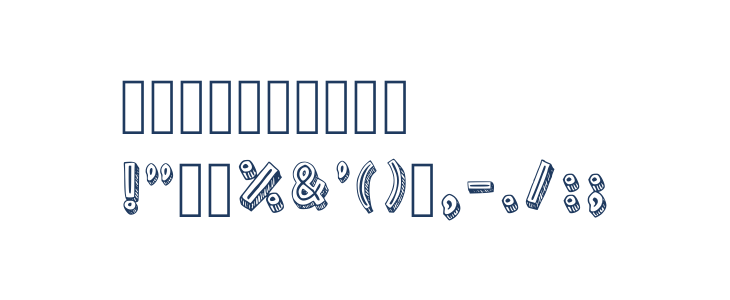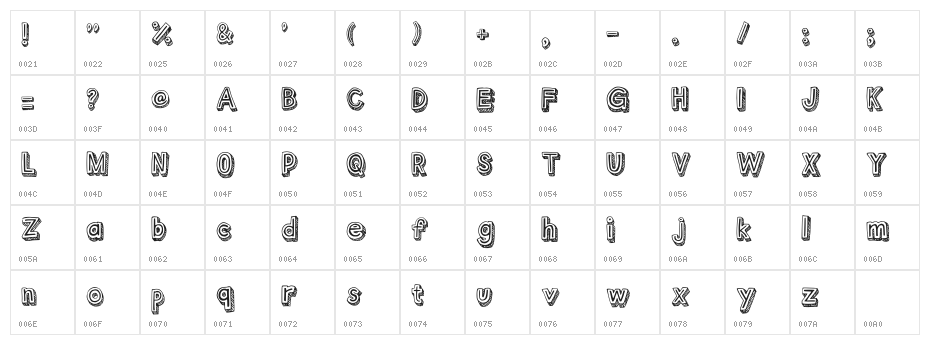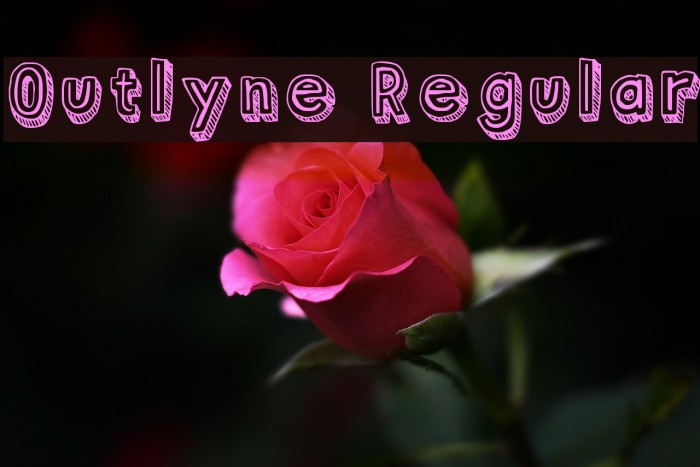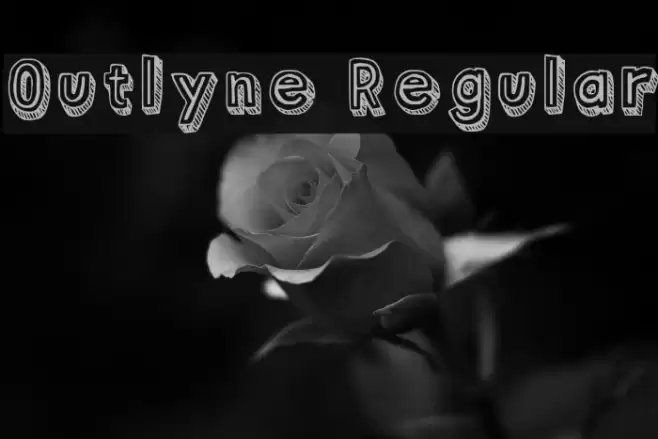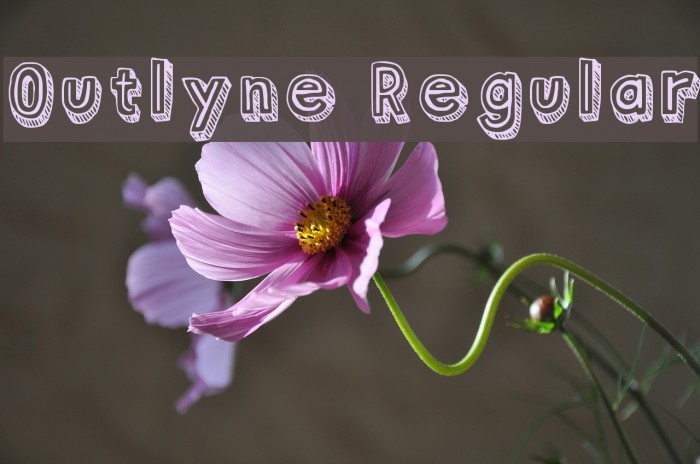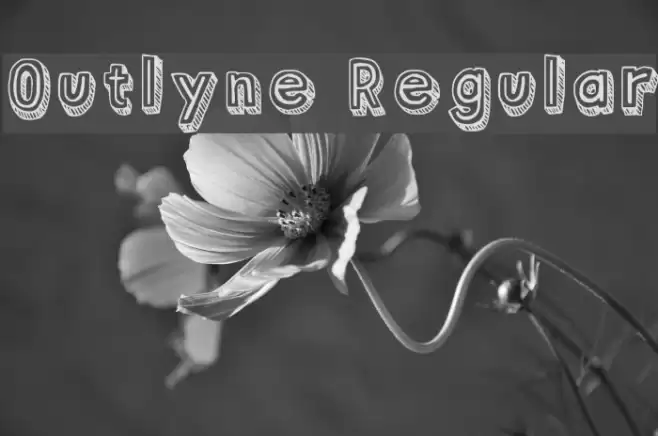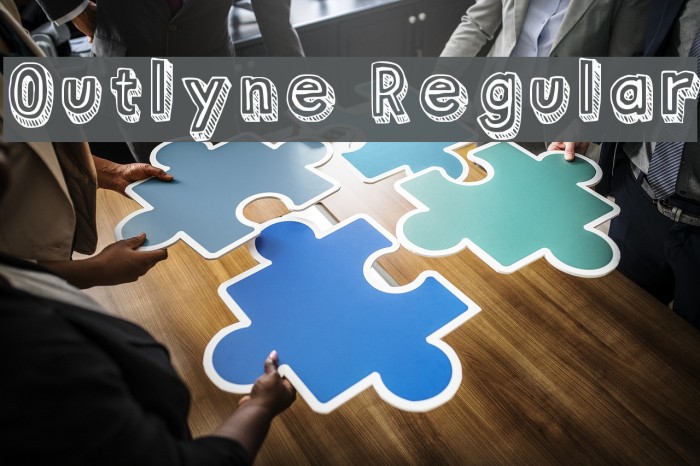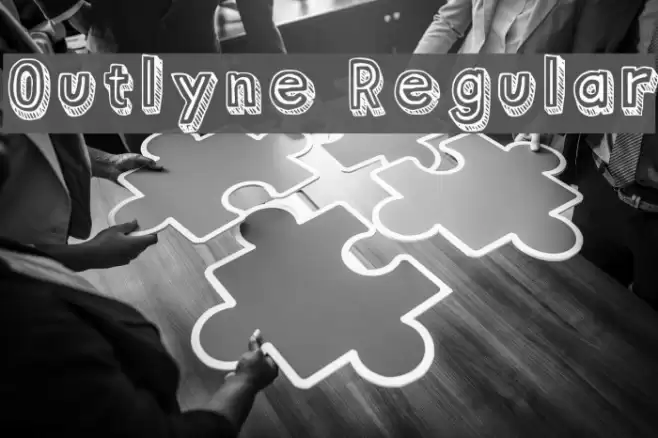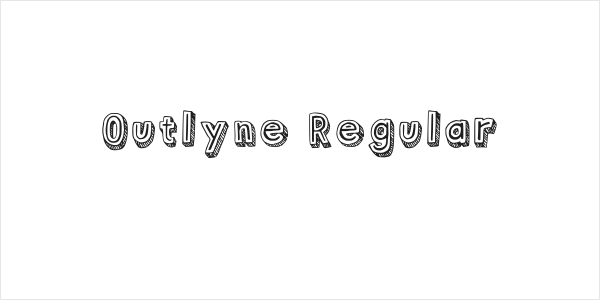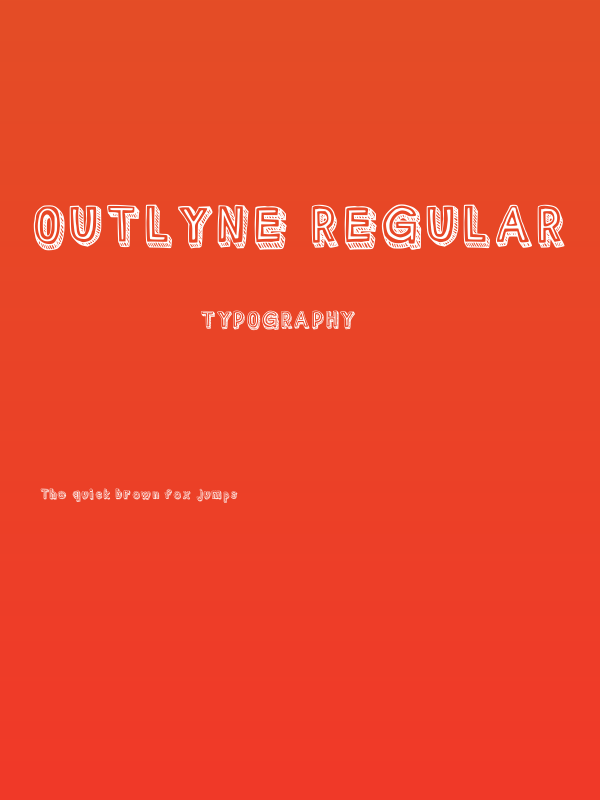
Outlyne Regular Font
Outlyne Regular Description
This font features a playful, three-dimensional outline style that gives each character a bold and dynamic appearance. The letters are designed with a shadow effect, creating a sense of depth and movement. The uppercase and lowercase letters maintain a consistent style, with rounded edges and a slightly condensed form. The numerals and special characters follow the same design principles, ensuring uniformity across the typeface. This font's unique aesthetic makes it stand out, making it ideal for creative and eye-catching designs.
| Proposed Projects | Ideal for posters, headlines, children's books, and playful branding projects. |